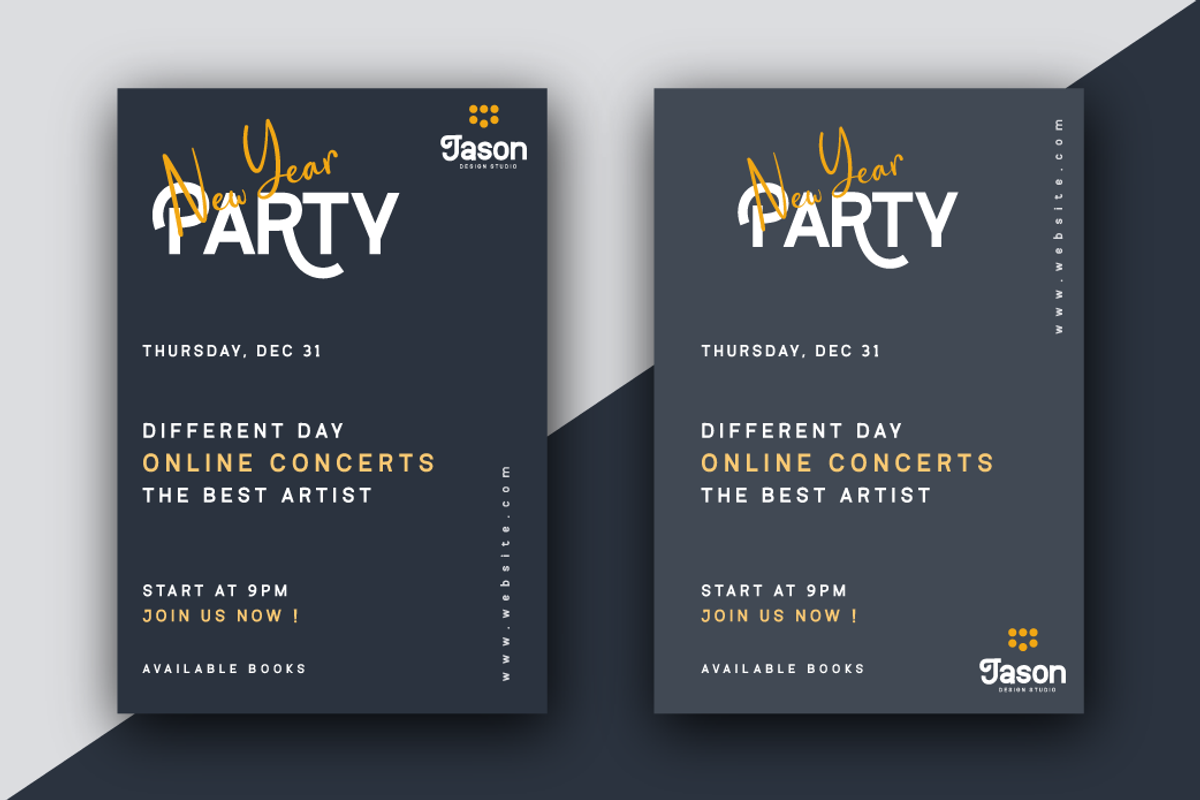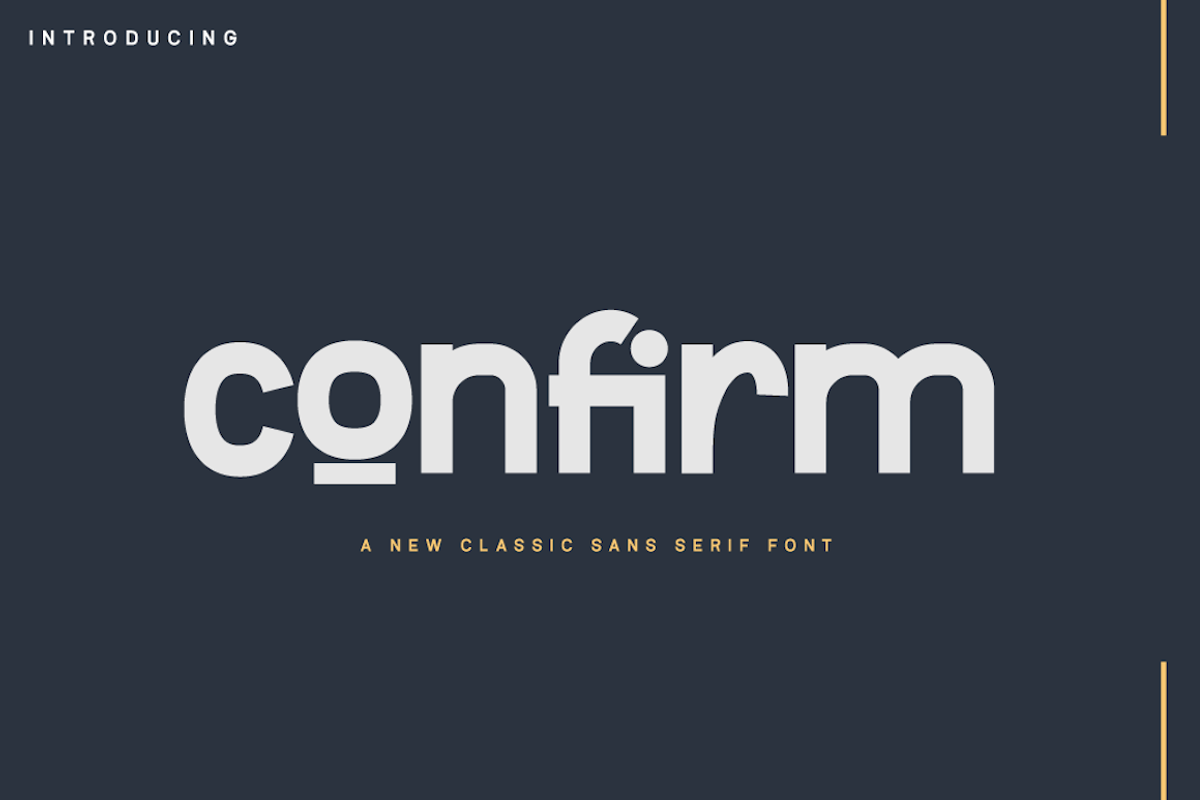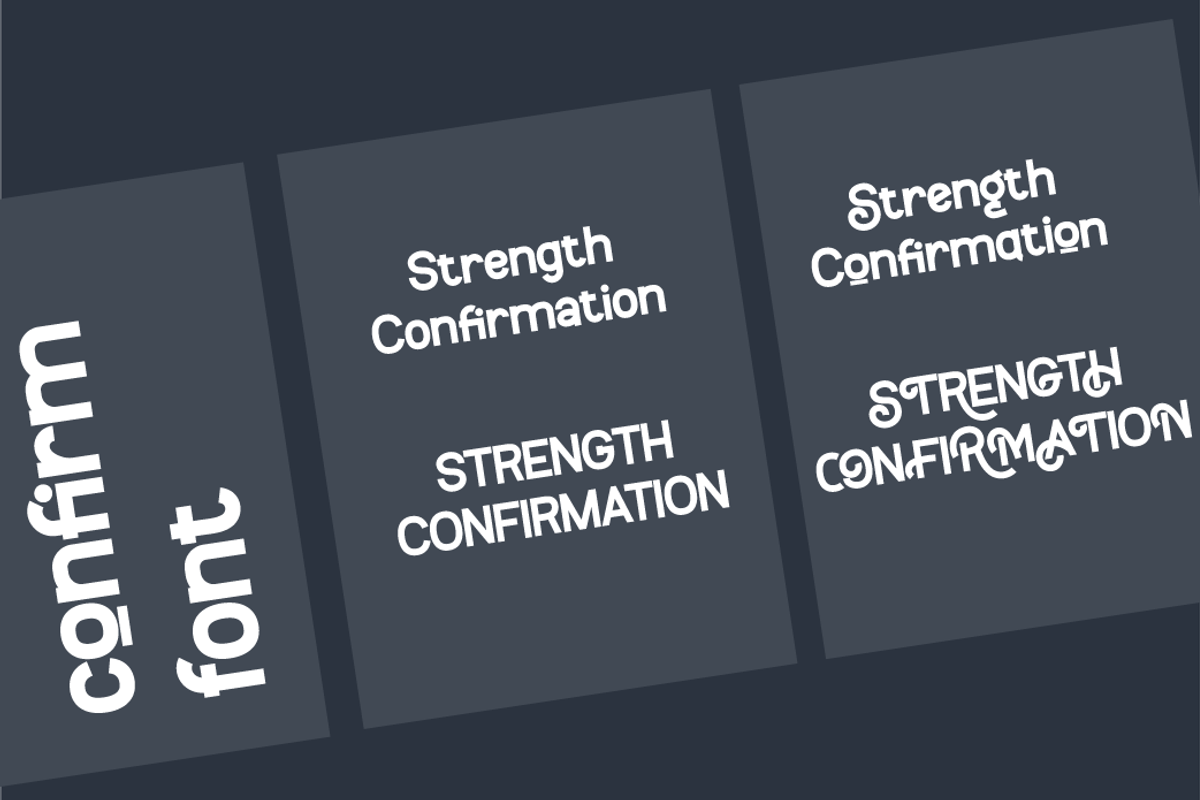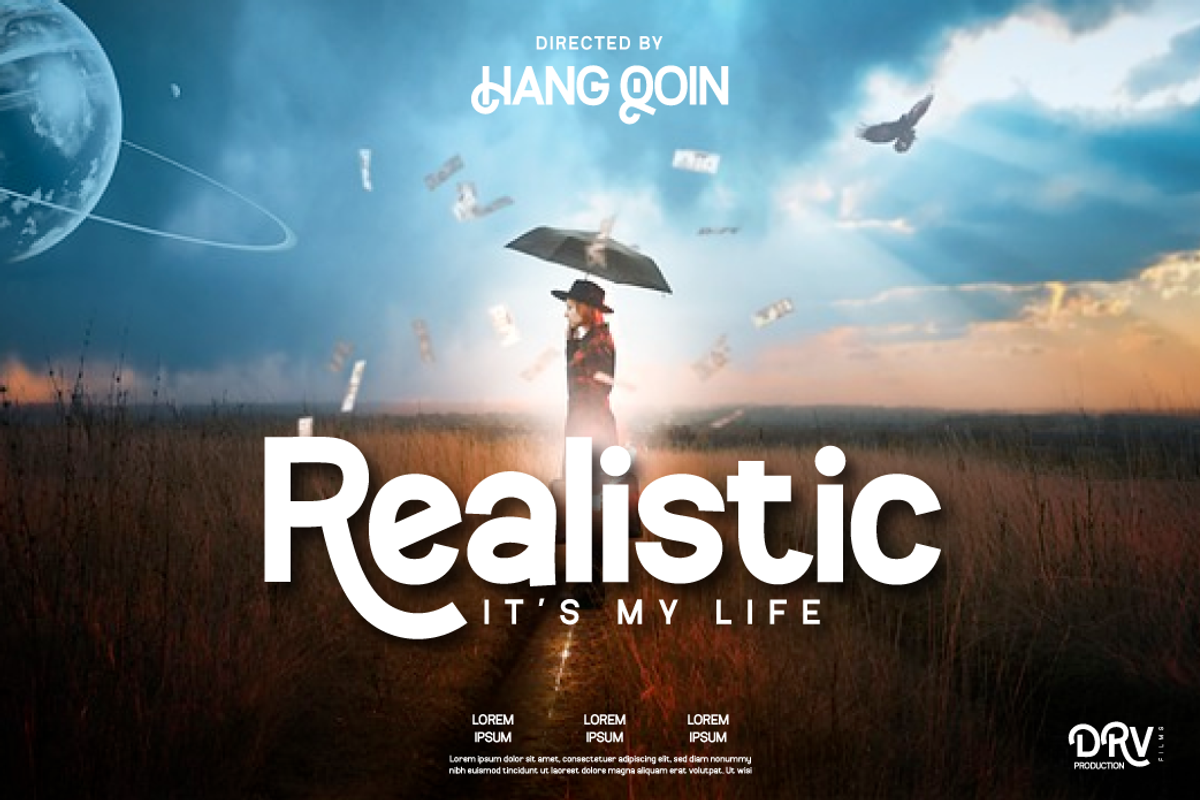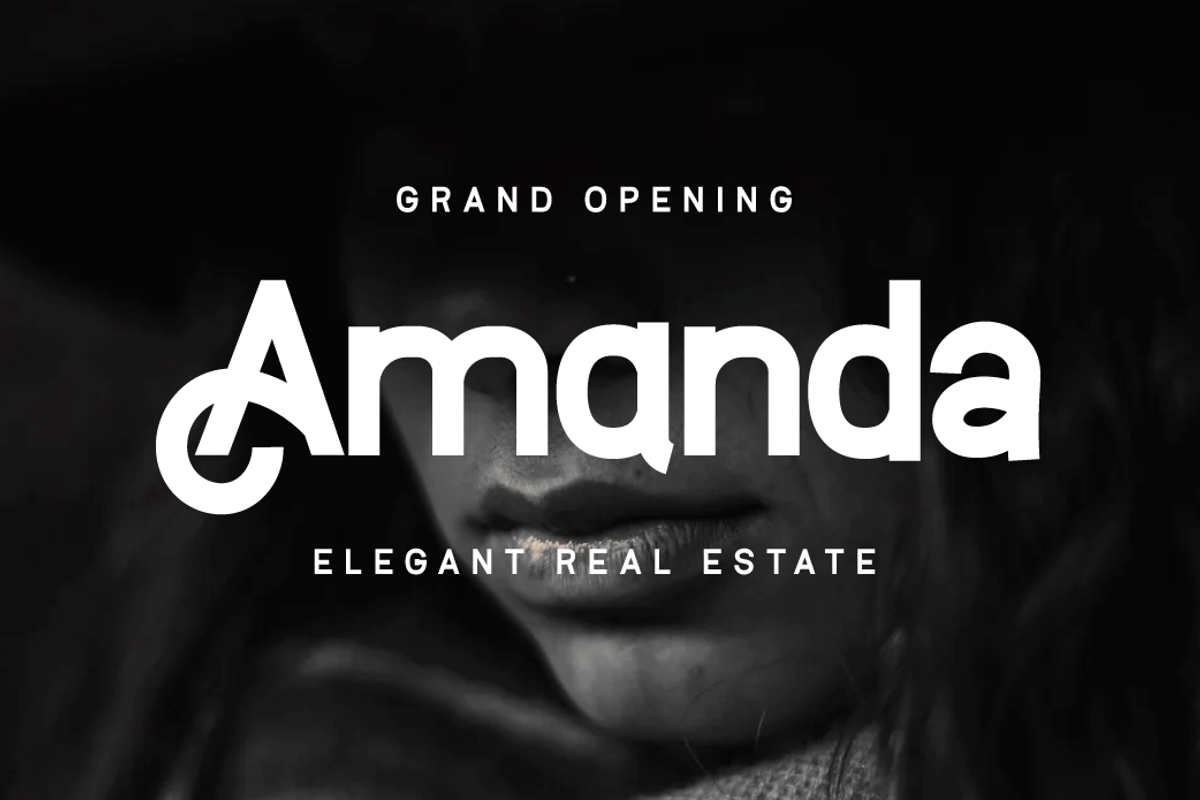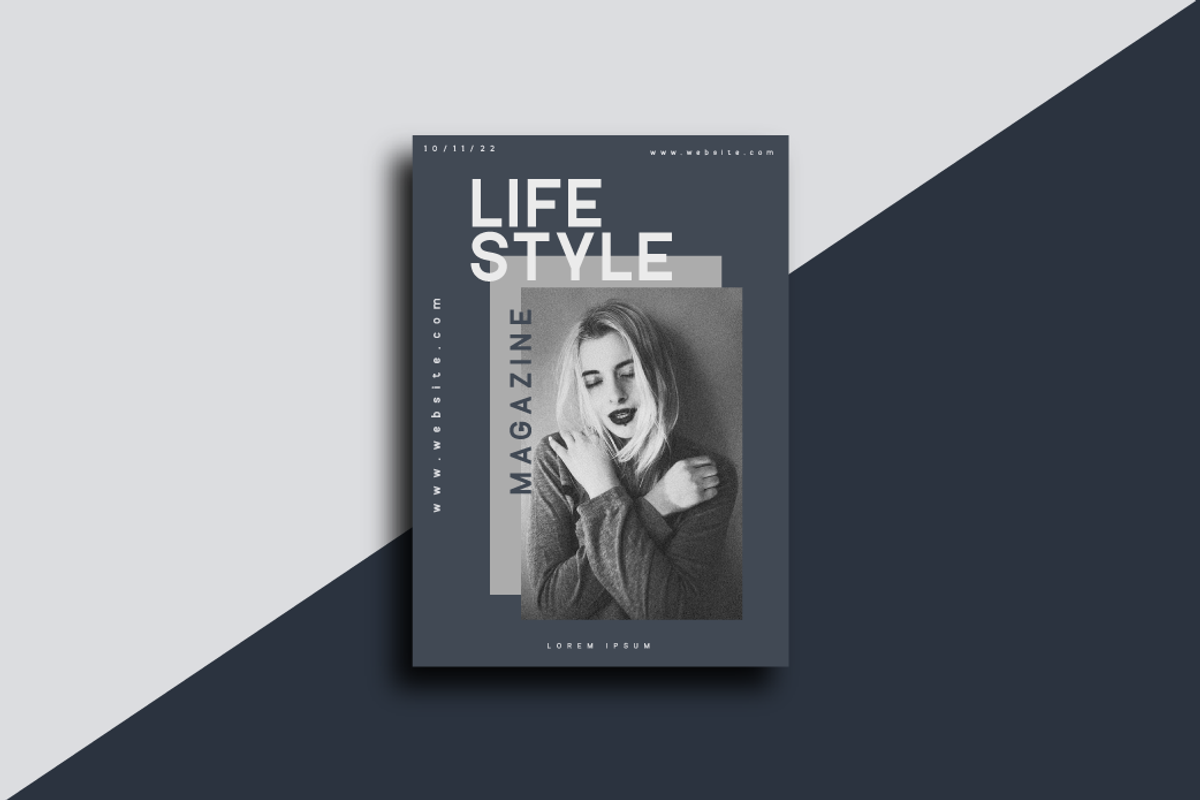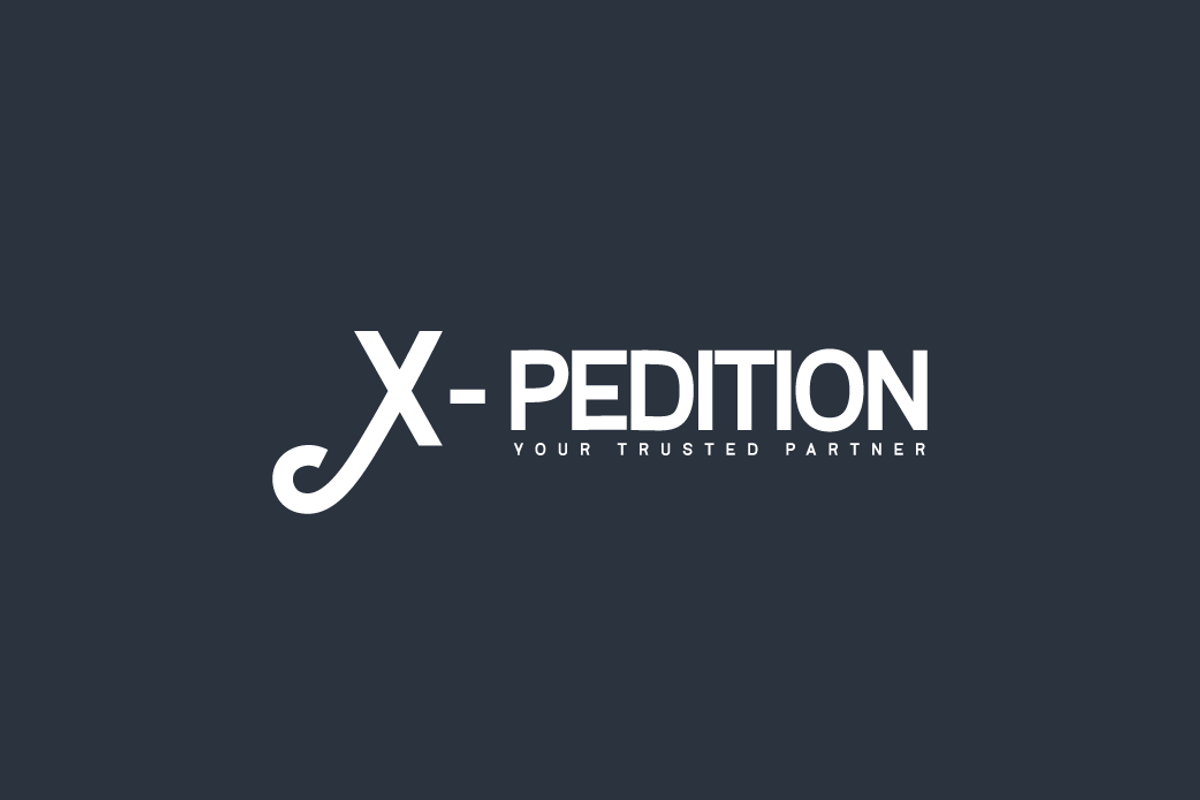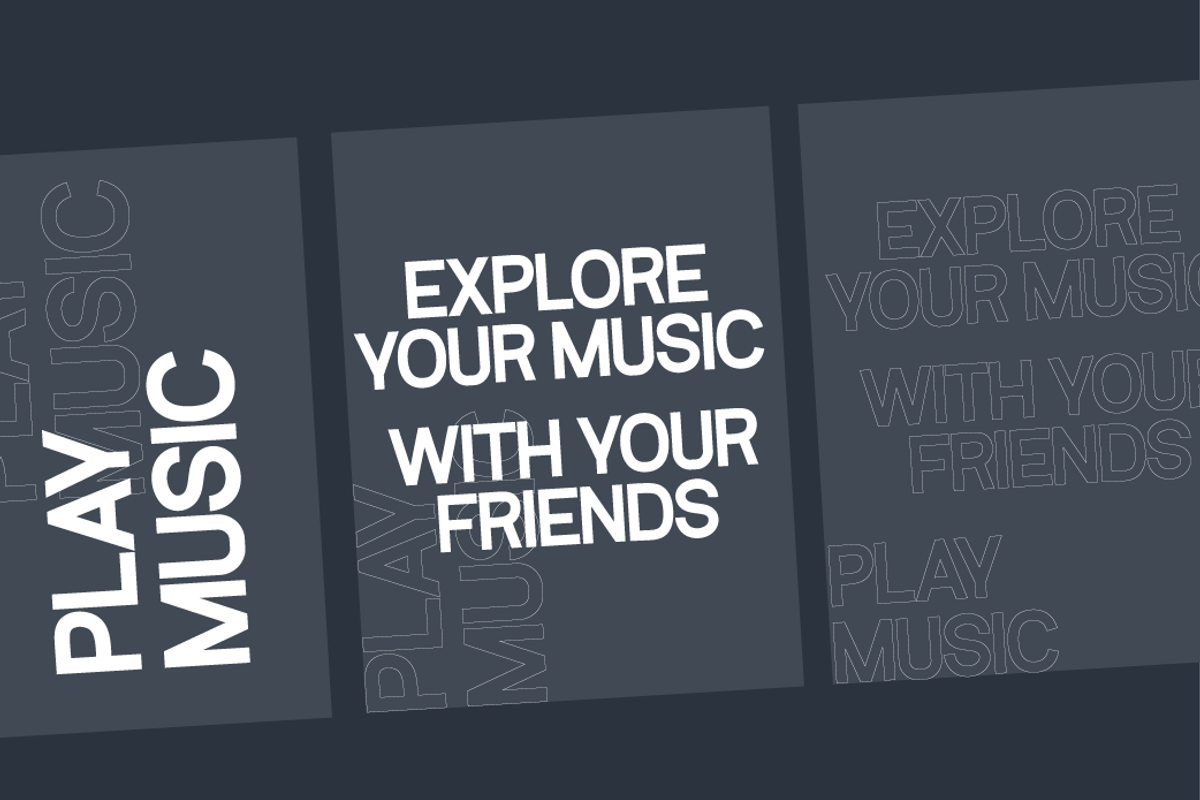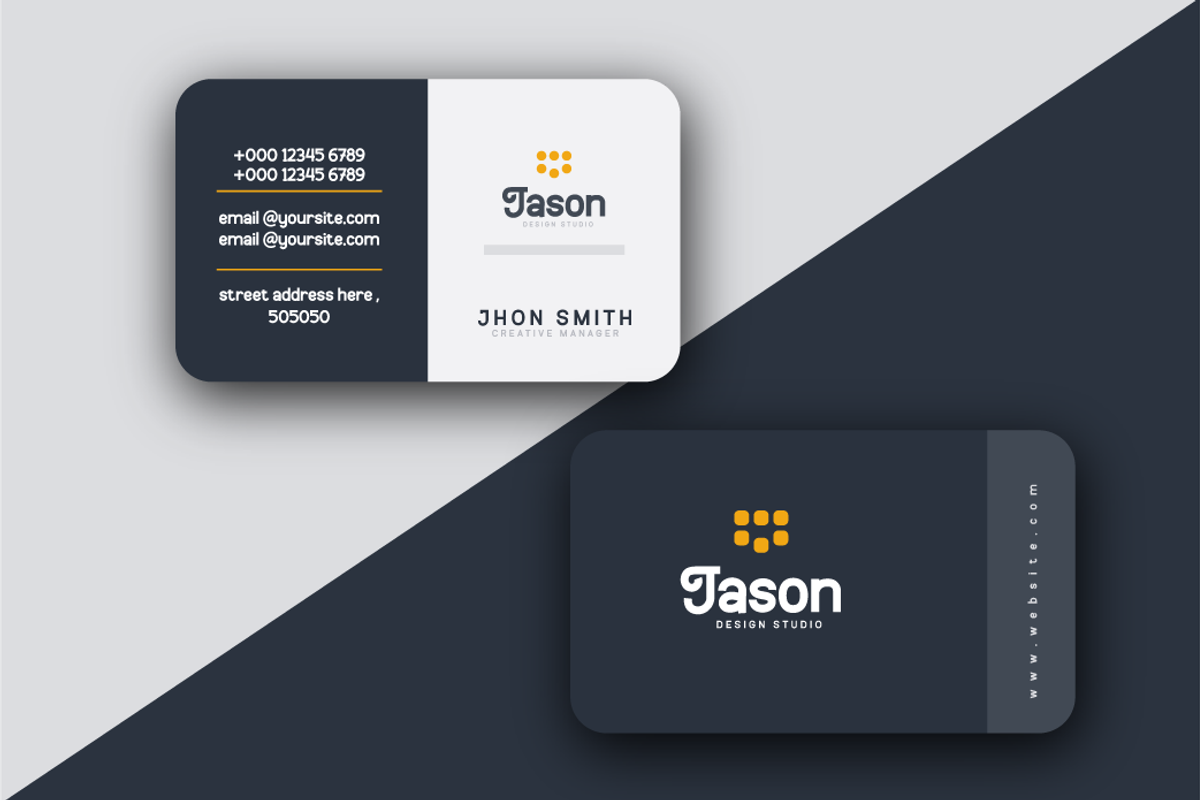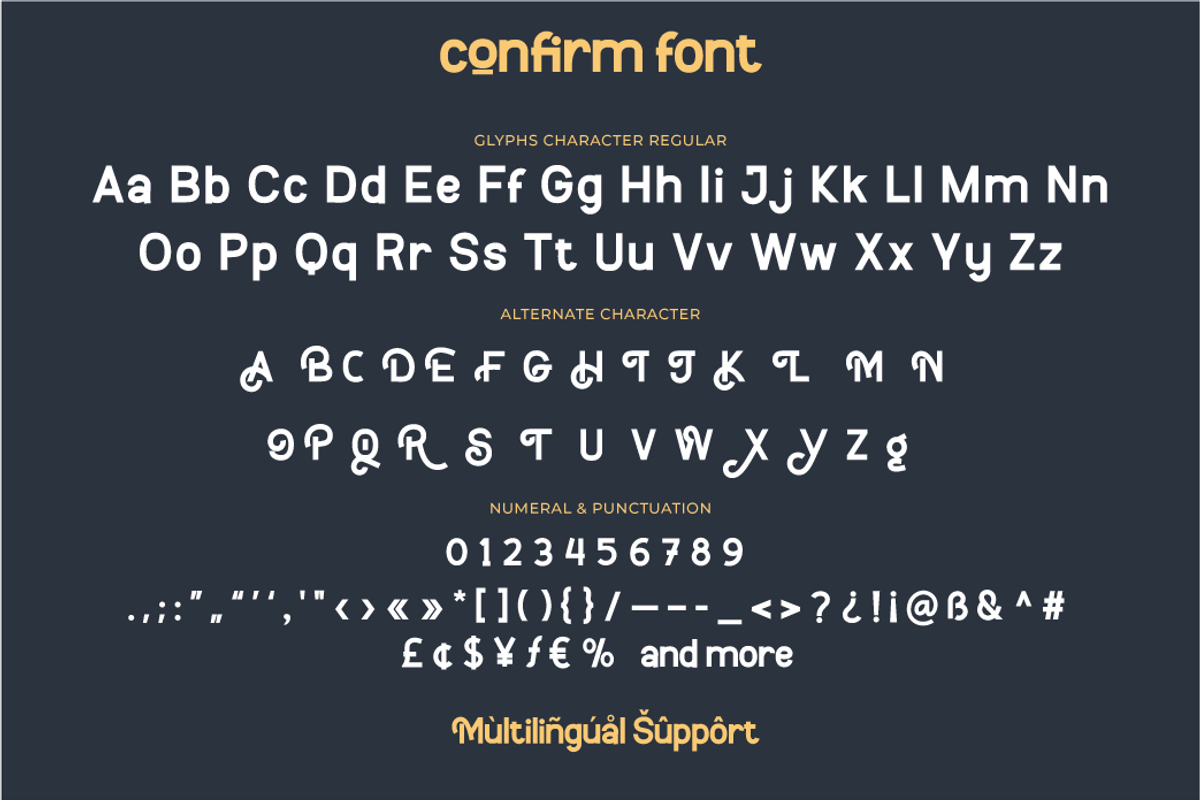
Confirm
Introducing our newest font, Confirm.
This font is rich in uniqueness in various characters in each letter, especially uppercase letters. This font is designed as an answer to the need for innovative and new designs, for that this font has different character characters. the impression of luxury and beauty that appears when you write the name or sentence you want with a wide selection of alternative letters in it
This font is perfect for strong text with displays for a wide variety of branding, advertising, posters, banners, packaging, news headlines, magazines, websites, logo design, and more.